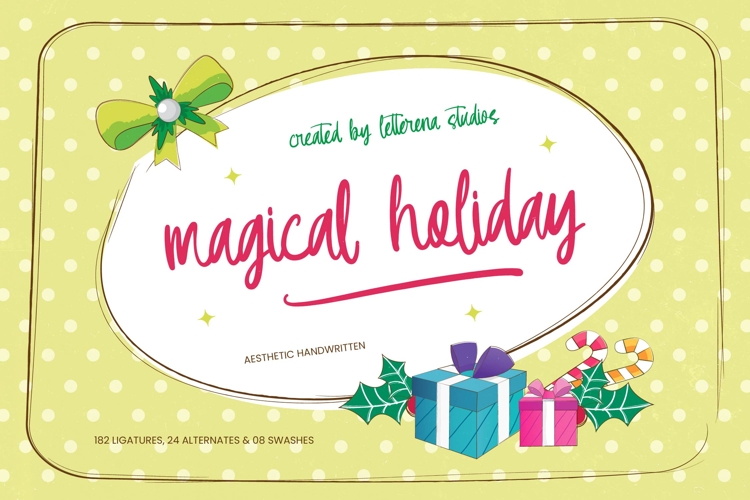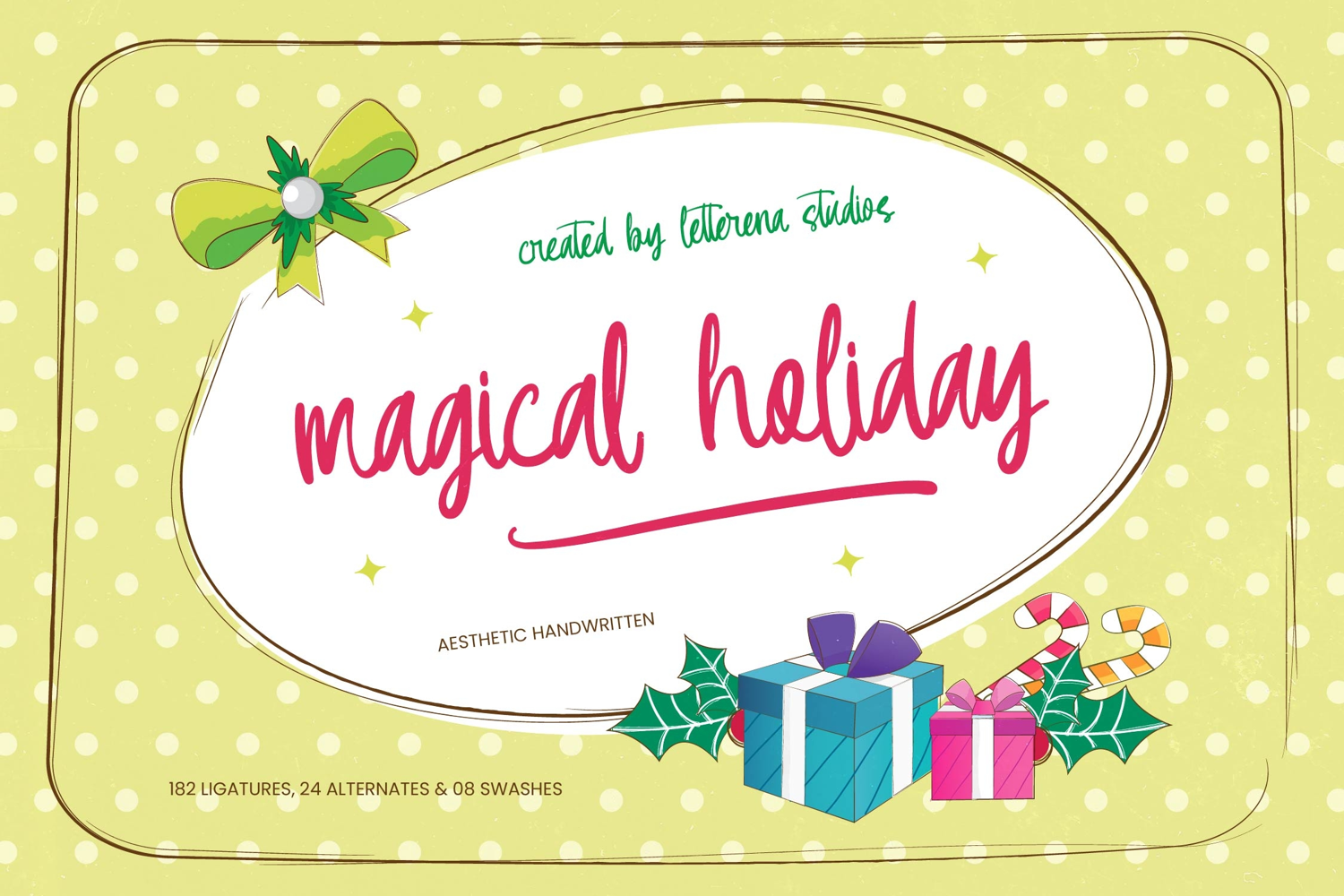
Magical Holiday - Aesthetic Handwritten
Elevate your creative vision with a typeface that captures the essence of refined playfulness and organic charm. Magical Holiday - Aesthetic Handwritten offers a fluid script aesthetic that bridges the gap between casual warmth and professional elegance. Its natural rhythmic flow ensures that every word feels personalized and intentional, providing your designs with a distinctive visual personality that stands out in a crowded digital landscape.
Break geographical barriers and reach a wider audience with ease using a tool designed for the modern world. With its extensive multilingual support, Magical Holiday - Aesthetic Handwritten adapts seamlessly across global markets, making it incredibly versatile for international projects. This global accessibility ensures that your brand message remains clear and stylish, maintaining professional consistency regardless of the language or region you are targeting.
Experience unparalleled customization through a vast array of unique typographic features tailored for high-end results. Boasting 182 ligatures and 24 alternates, Magical Holiday - Aesthetic Handwritten allows for bespoke craftsmanship in every layout. The inclusion of 08 decorative swashes further enhances its artistic versatility, enabling designers to create sophisticated, hand-drawn looks that previously required hours of manual illustration.